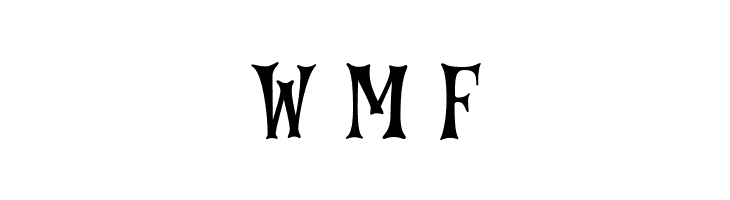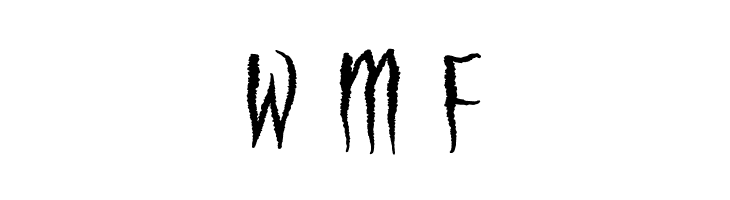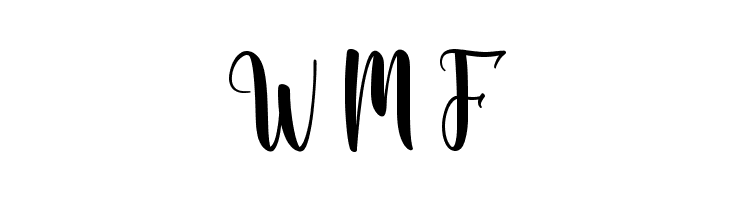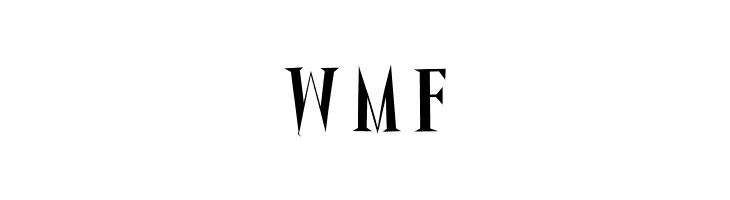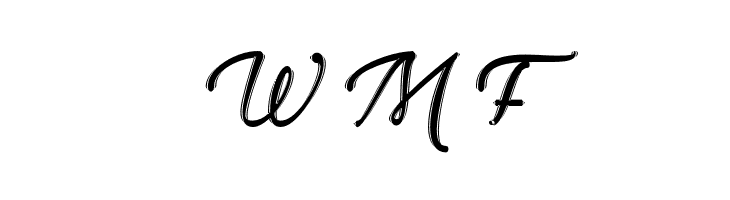
A bold, shadowed font with gothic and spooky elements, perfect for Halloween themes.
A bold, brushstroke font with an energetic and artistic style.
Distressed, spooky display font with jagged, uneven strokes.
A wavy, hand-drawn display font with a spooky vibe.
Bold, rounded, spooky display font with playful character shapes.
A spooky, jagged font perfect for horror and Halloween themes.
Playful handwritten script with a whimsical style.
A bold, corroded font with a haunting, gothic style.
A bold, gothic-style font with sharp, angular edges and a dramatic presence.
A bold, gothic-style font with sharp, angular lines and an inline design.
A gothic, medieval-inspired font with ornate, high-contrast letterforms.
A gothic-inspired font with letters in rounded square bricks, perfect for spooky designs.
A flowing and elegant script font with dynamic curves and moderate contrast.
A spooky, jagged font with a haunted, eerie appearance.
A bold, spooky font with sharp serifs and a supernatural vibe.
Distressed, brush-stroke display font with a spooky vibe.
A modern, geometric font with angular, consistent lines.
A geometric, modern font with sharp angles and a futuristic style.
A dynamic handwritten font with fluid, expressive strokes.
A bold, Gothic-inspired font with angular lines and high contrast, perfect for dramatic designs.
A chaotic and eclectic font with unique, symbol-rich characters.
A geometric, modern font with clean lines and a minimalist aesthetic.
A geometric and minimalist font with clean lines and a modern aesthetic.
A playful, casual script font with fluid, connected strokes and a handwritten feel.
A bold, hand-drawn font with playful, irregular characters.
A hand-drawn, whimsical font with thin, irregular strokes.
A bold, playful script font with smooth, flowing curves and a handwritten style.
A bold, distressed font with a vintage, industrial feel.
A bold, playful font with rounded, bubble-like characters.
A bold, playful font with a three-dimensional outline and shadow effect.